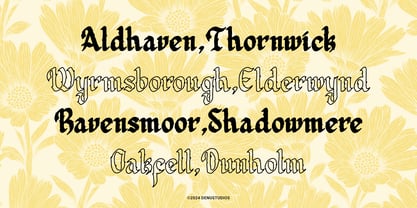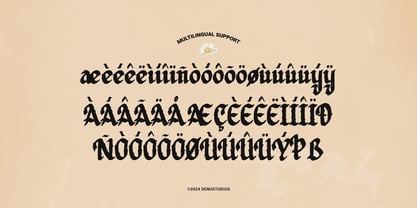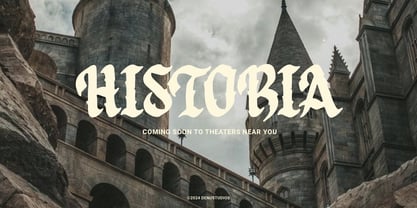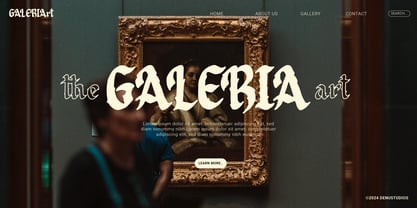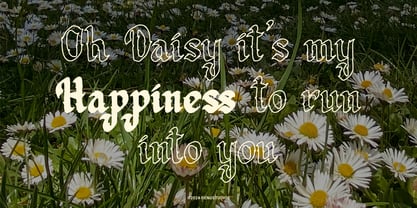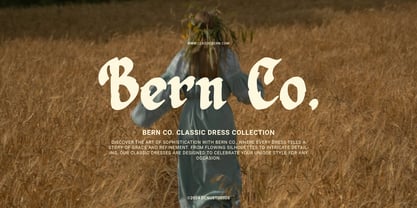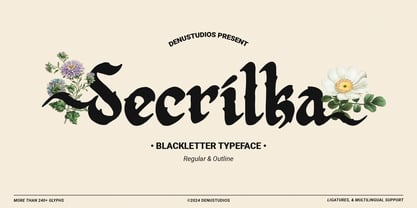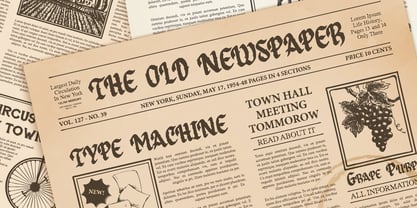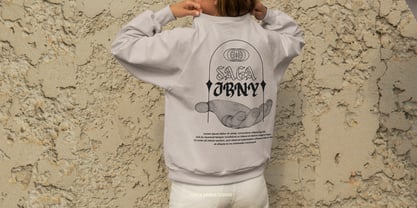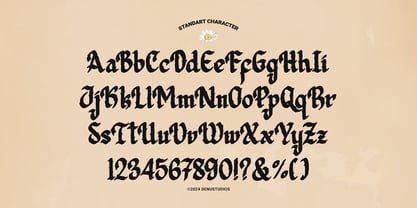
Secrilka
by Denustudio
The Secrilka Font Family was designed by Dede Nugraha and published by Denustudio. Secrilka contains 2 styles and family package options. More about this family
Secrilka | Blackletter Typeface, from Denustudios, suitable for any projects such as: logos, branding projects, homeware designs, product packaging, mugs, quotes, posters, shopping bags, t-shirts, book covers, name card, invitation cards, greeting cards, label, photography, watermark, special events, and all your other lovely projects that need a Blackletter Typeface taste.
• Regular and Italic
• Alternate and Ligature